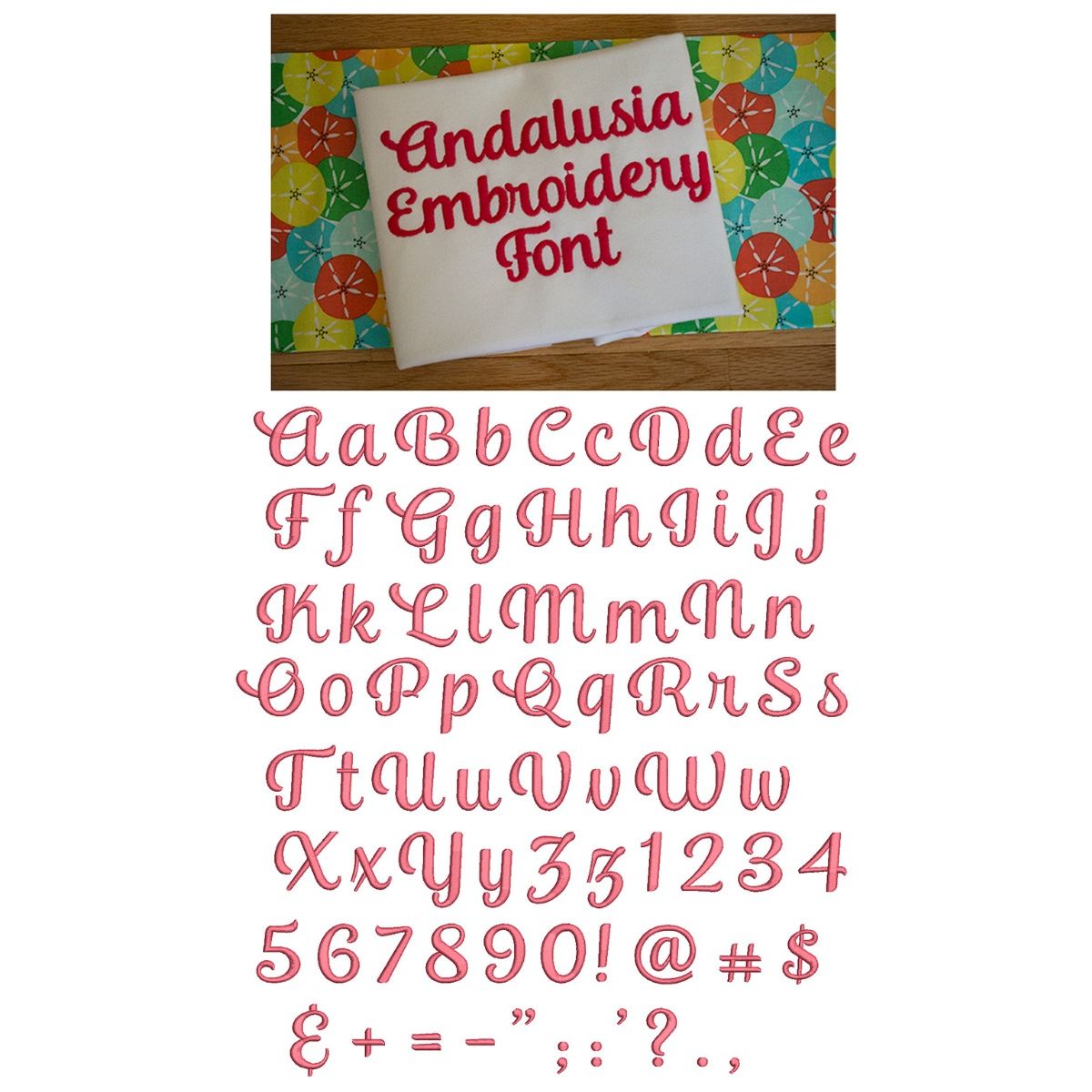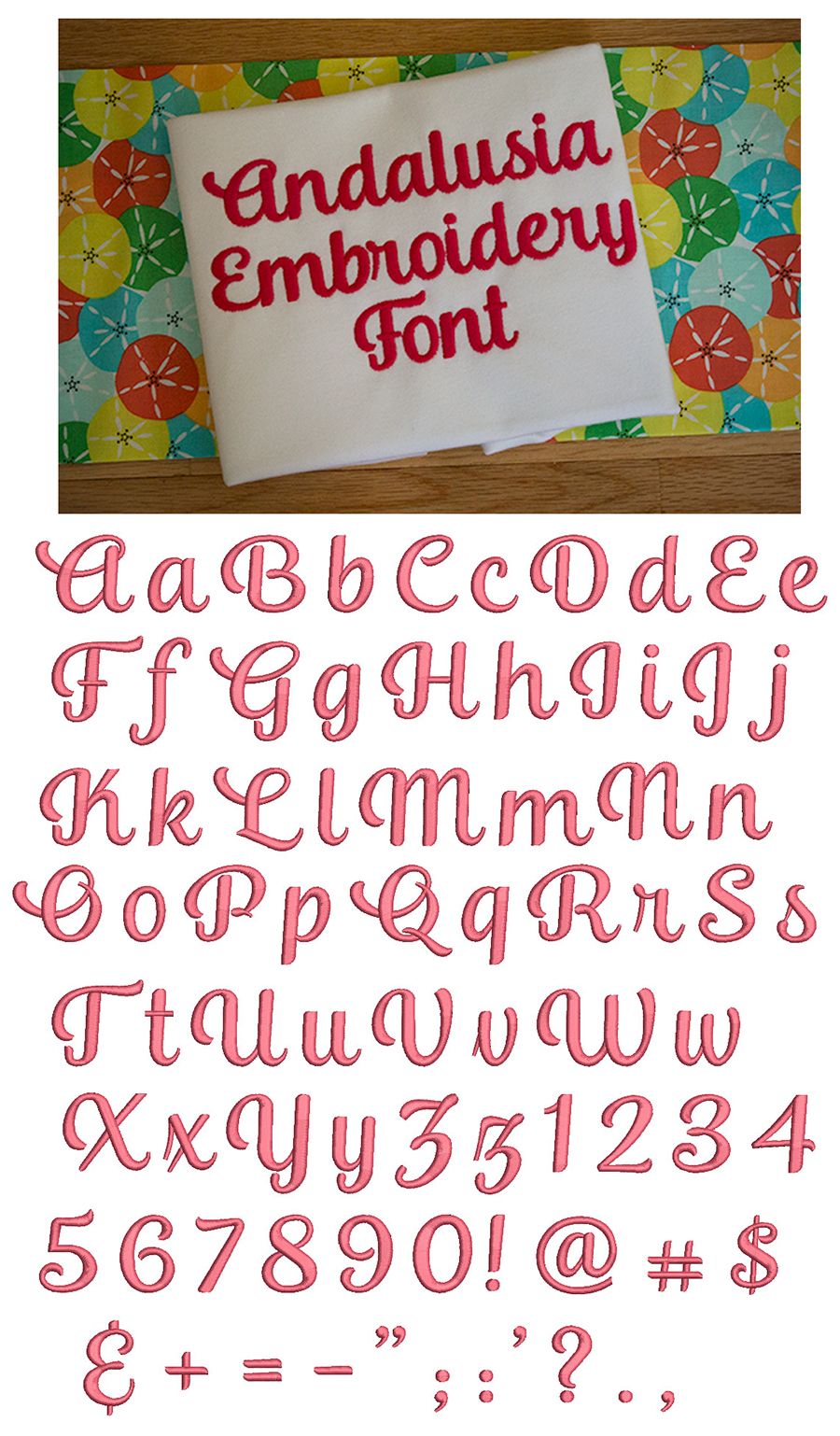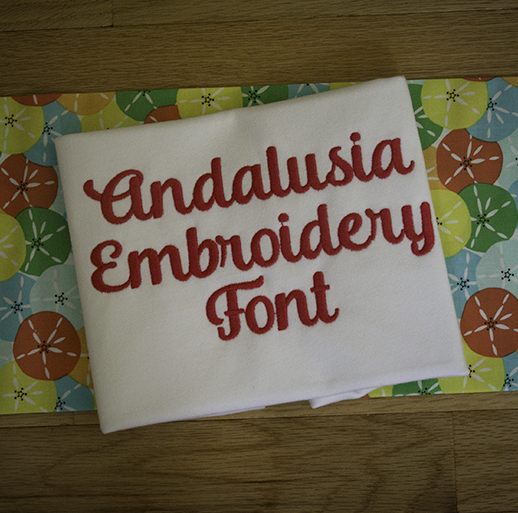
Andalusia Satin Stitch Embroidery Font
A lovely simple script fonts!  All of our font alphabets are 100% manually digitized to bring you maximum stitch quality.